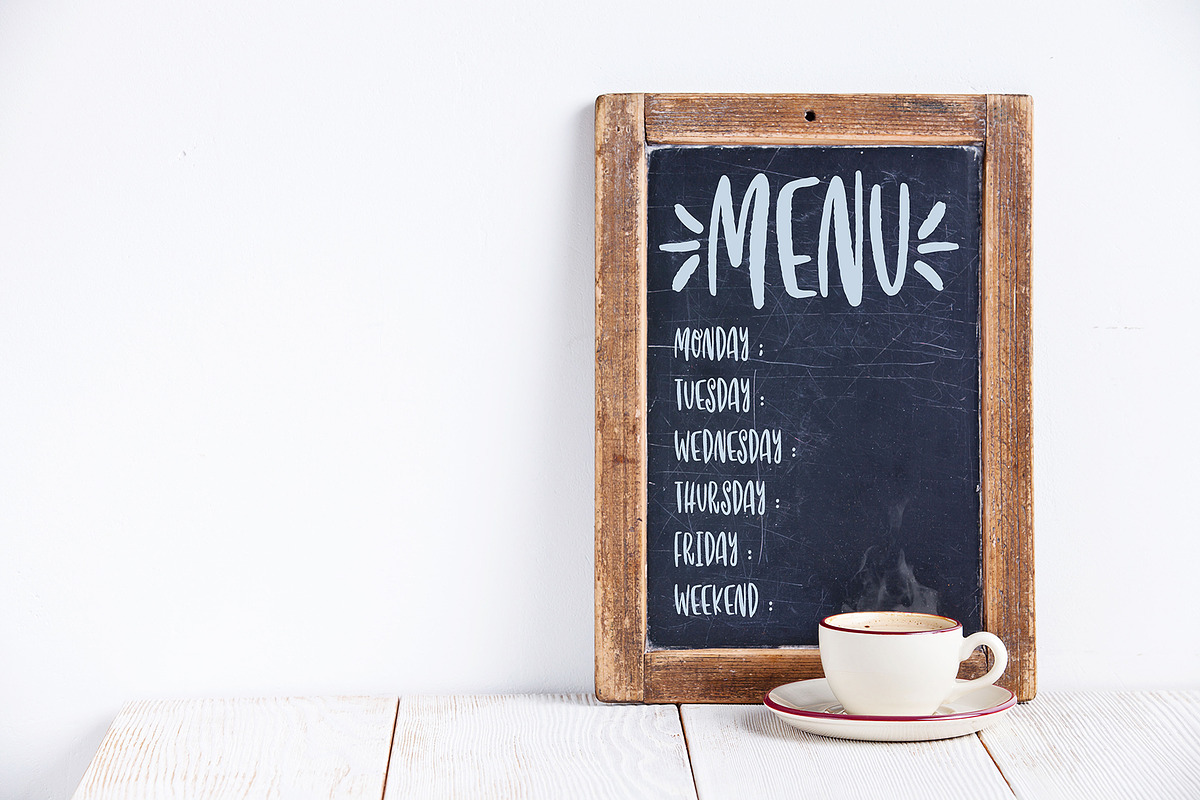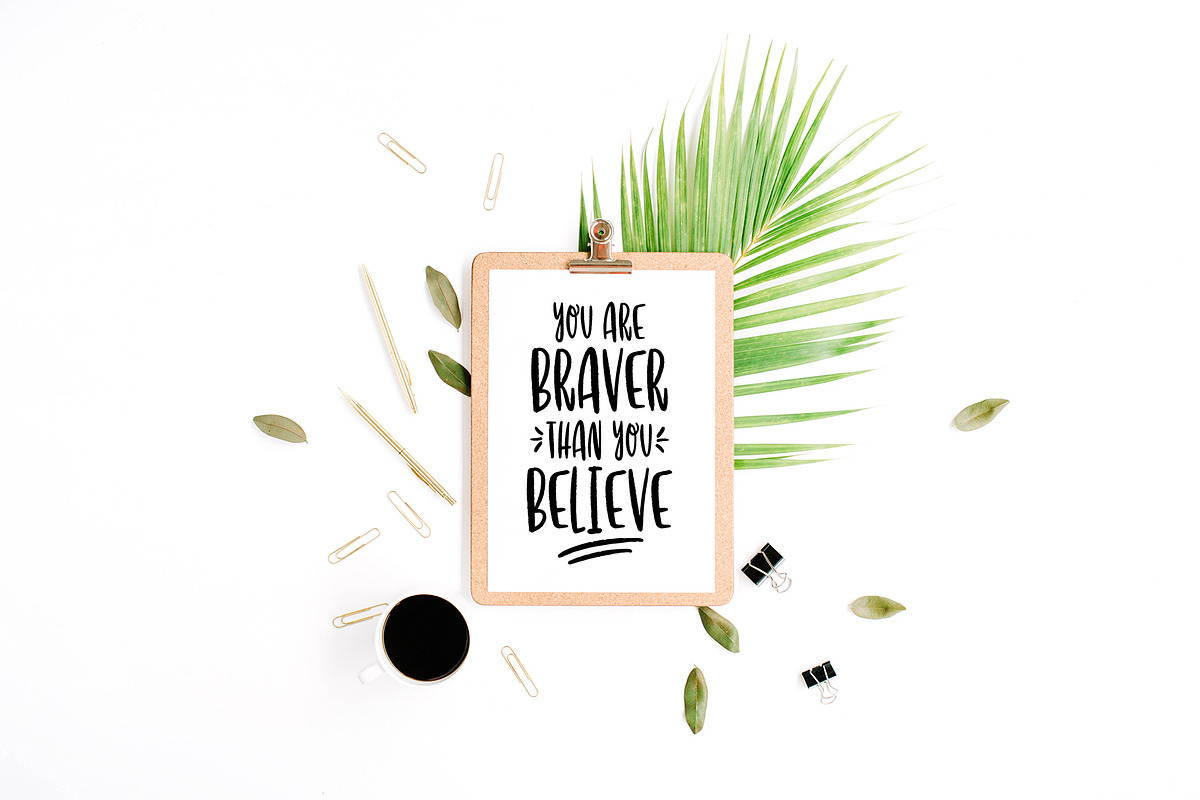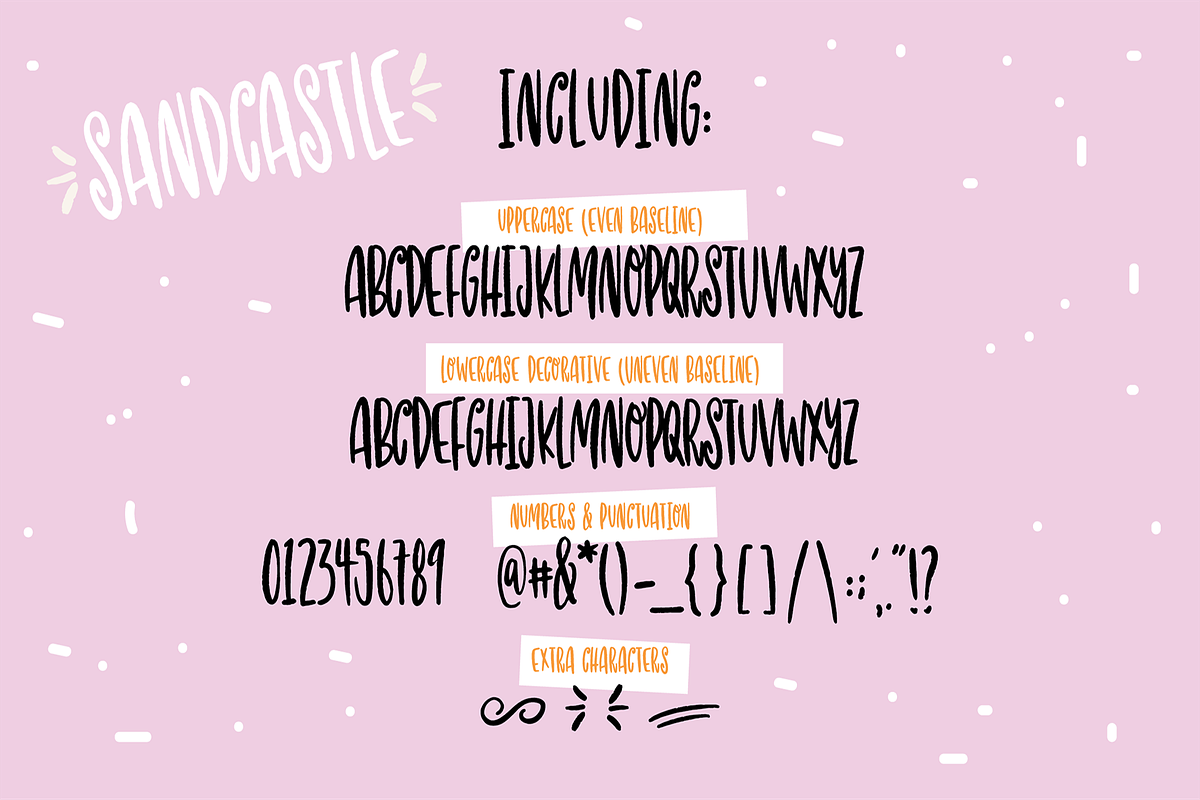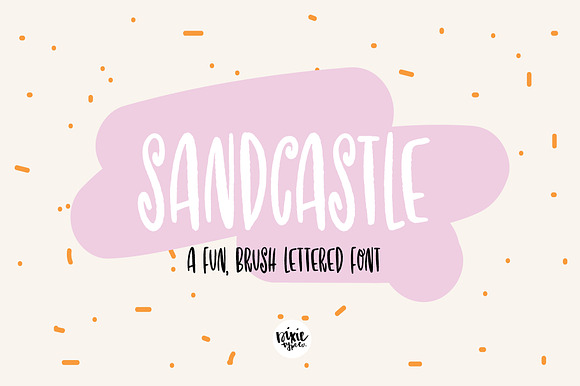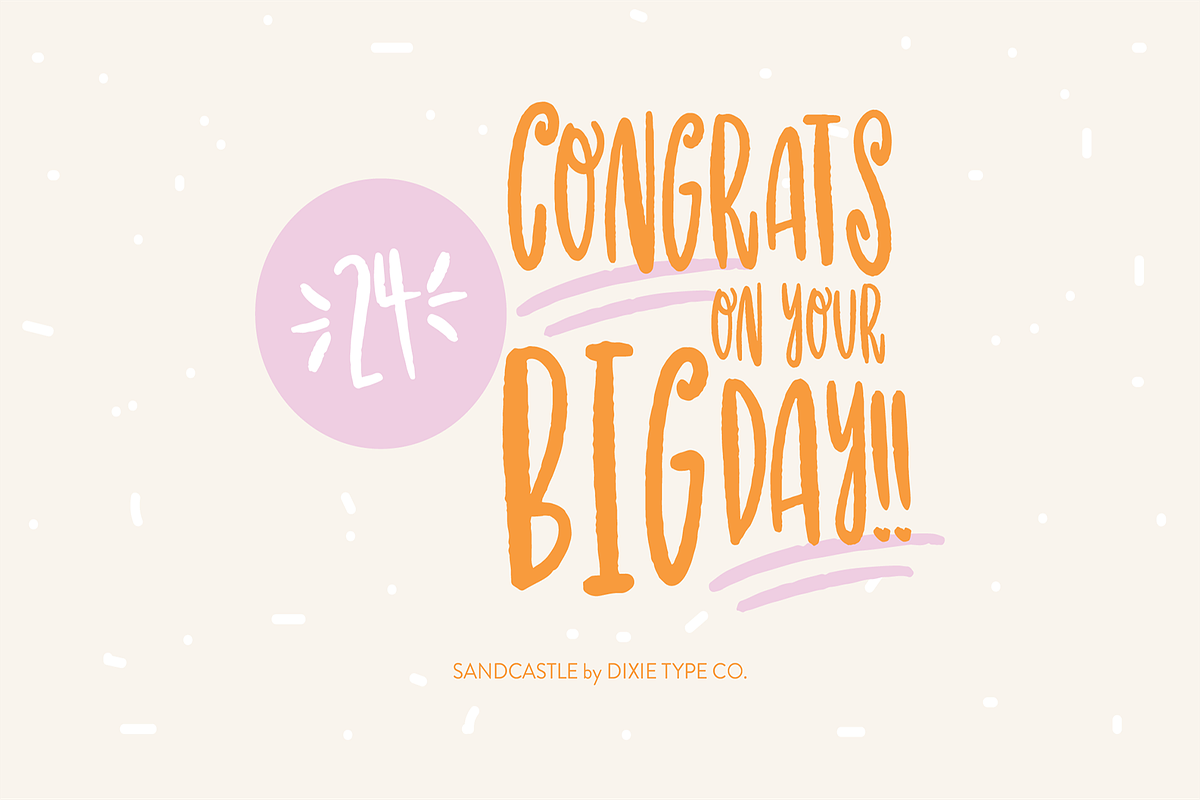
SANDCASTLE Hand Lettered Brush Font
"Sandcastle" is a sans serif, hand-lettered installable font.
{ A typographic font hand-lettered with love by Dixie Type Co. }
Font includes: Upper and lowercase glyphs, numbers, and 41 additional characters. To access the extra characters, use the keyboard keys =,~,%,^.